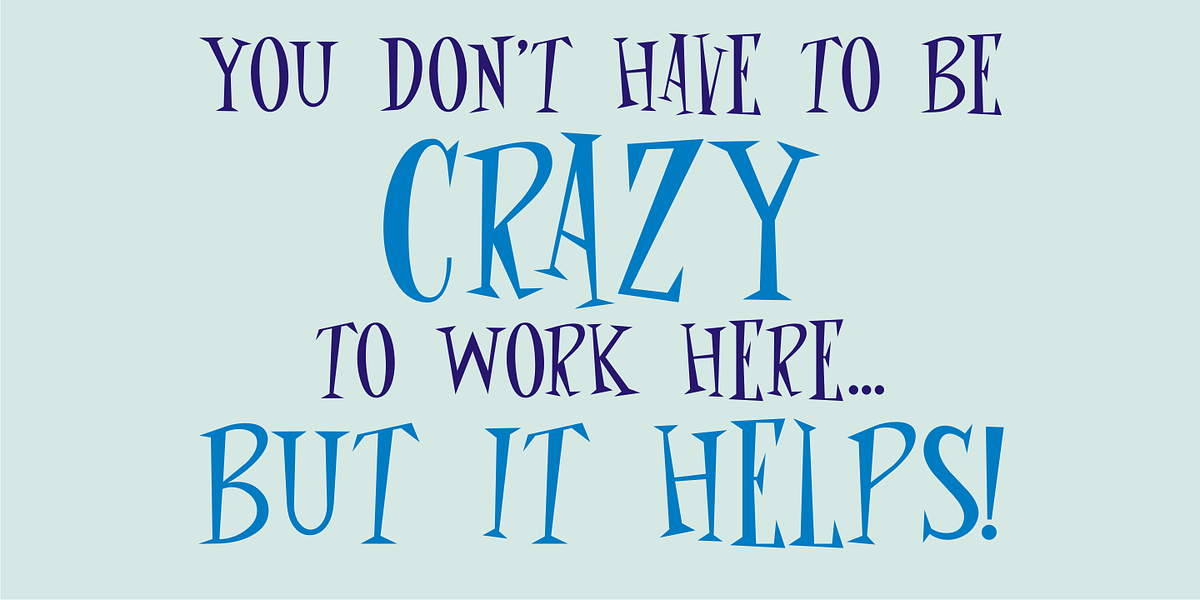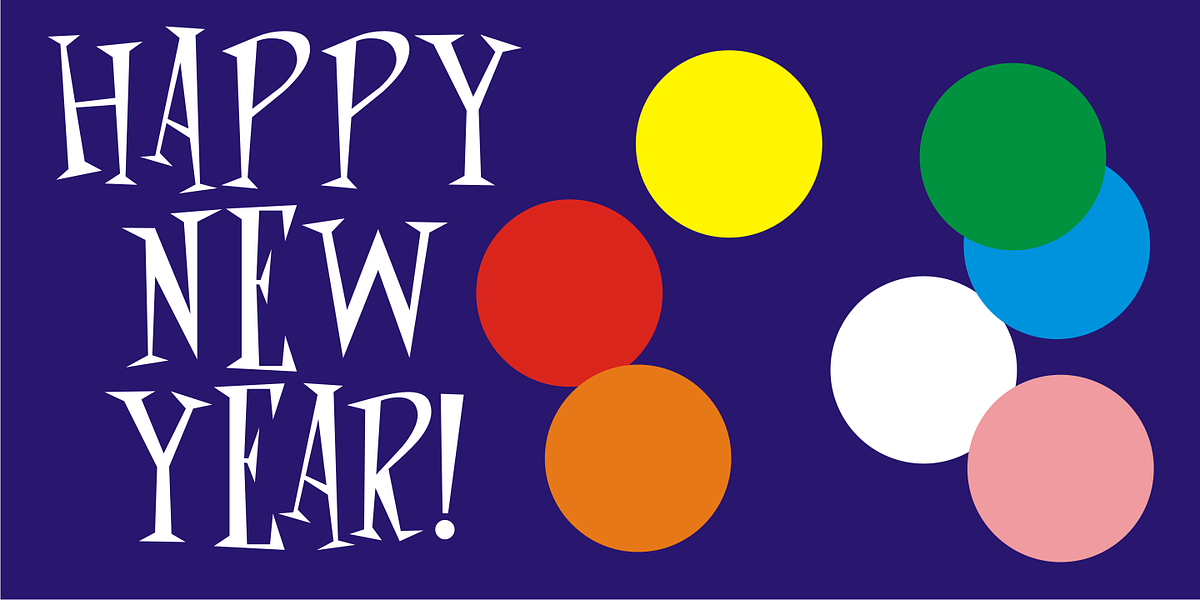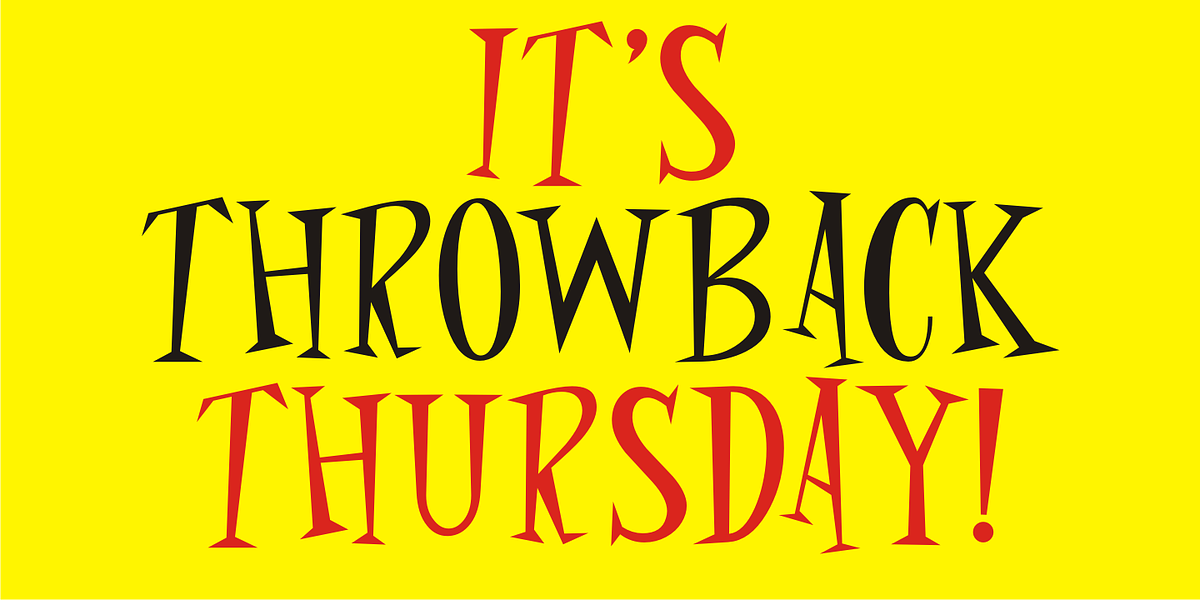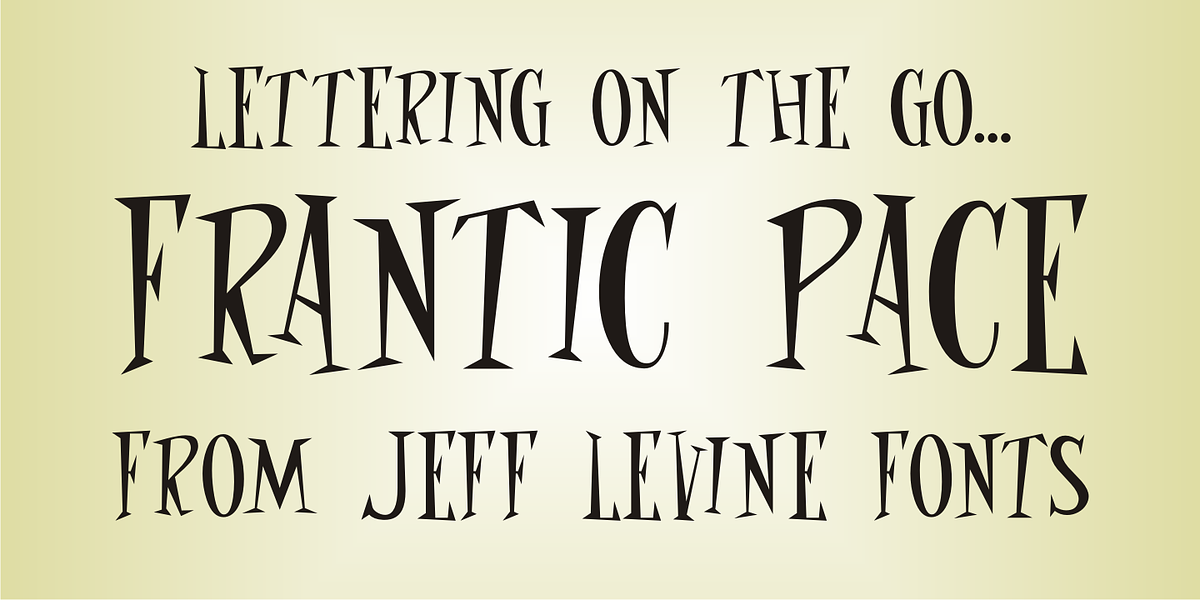
Frantic Pace JNL
Frantic Pace JNL is based on hand lettering found on the lid of a late 1950s or early 1960s edition of the Print Craft alphabet printing set once manufactured by the Superior Marking Equipment Company of Chicago.
The free-form spurred serif lettering is fun and casual; giving the impression of movement or action.